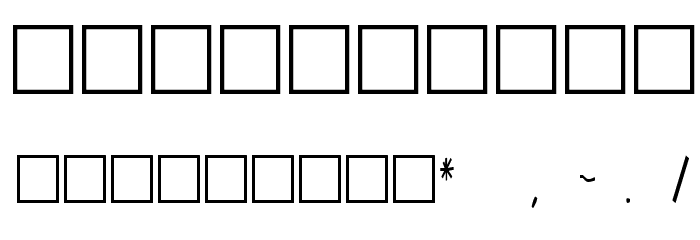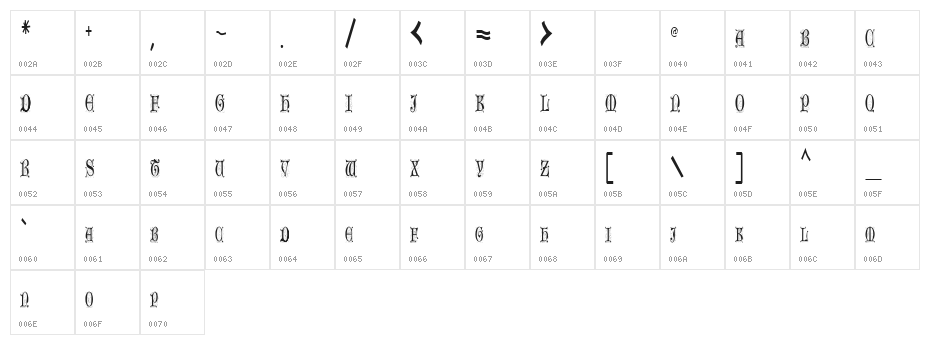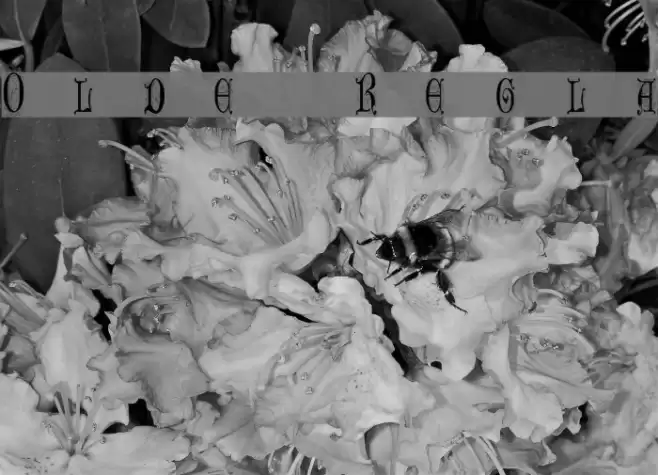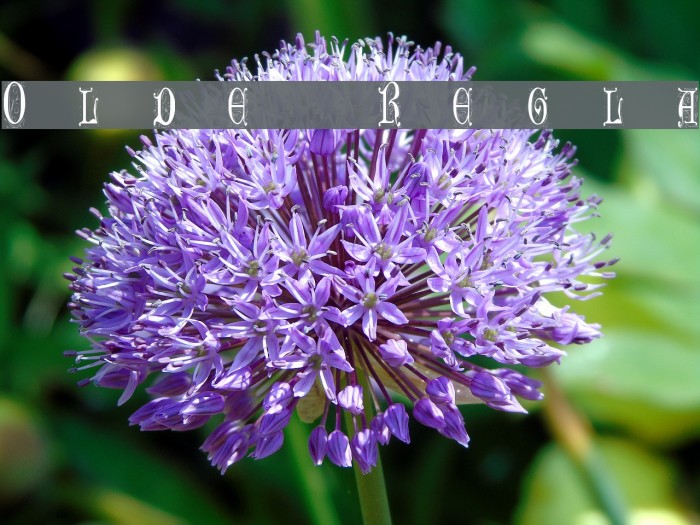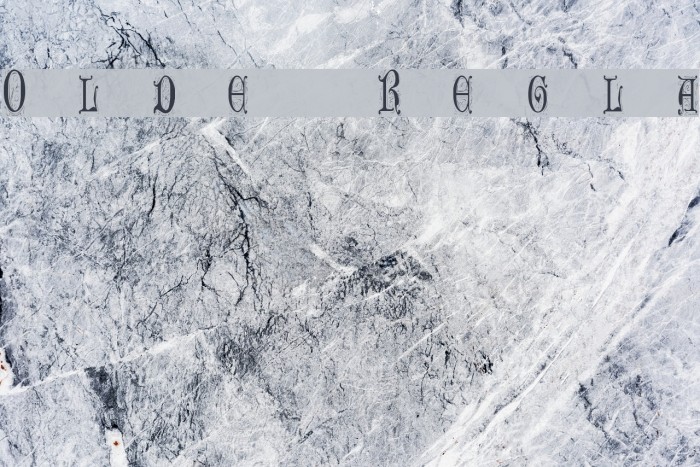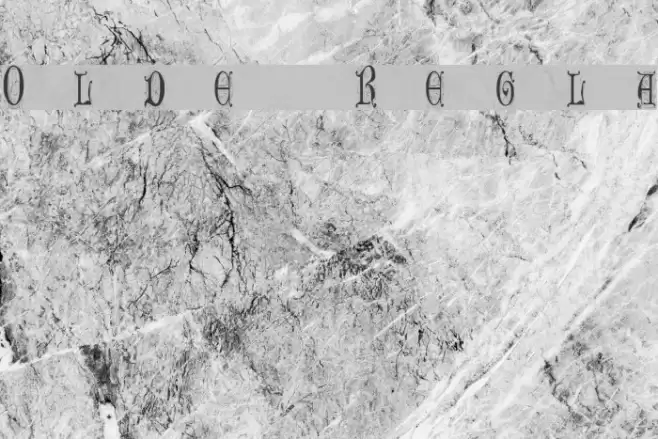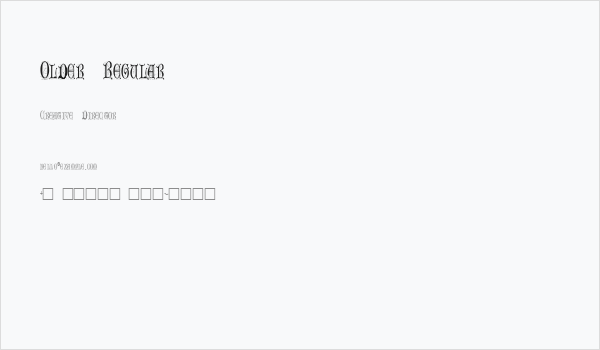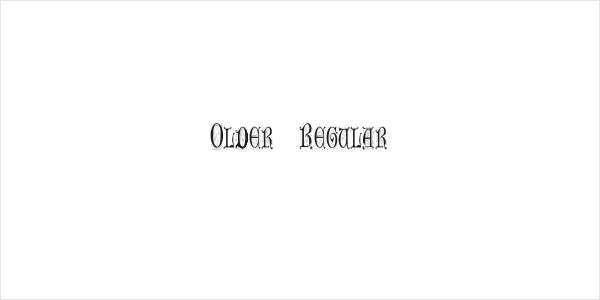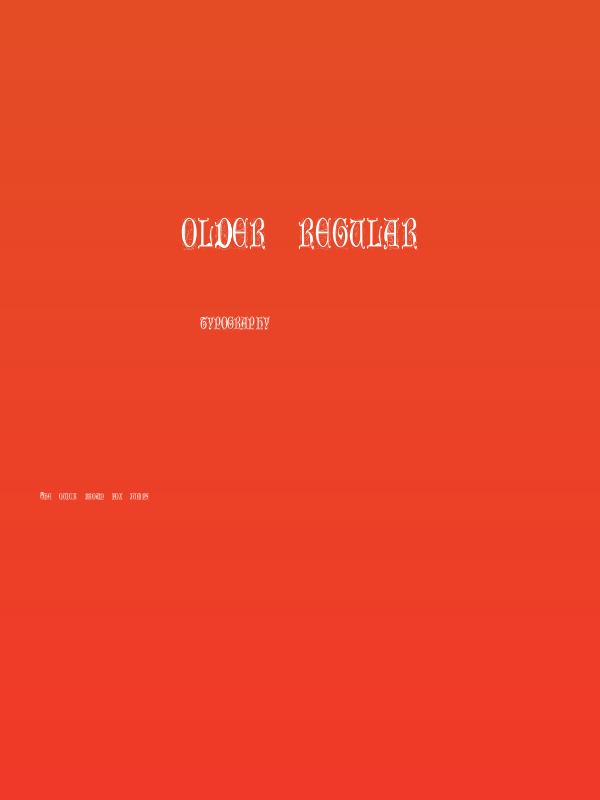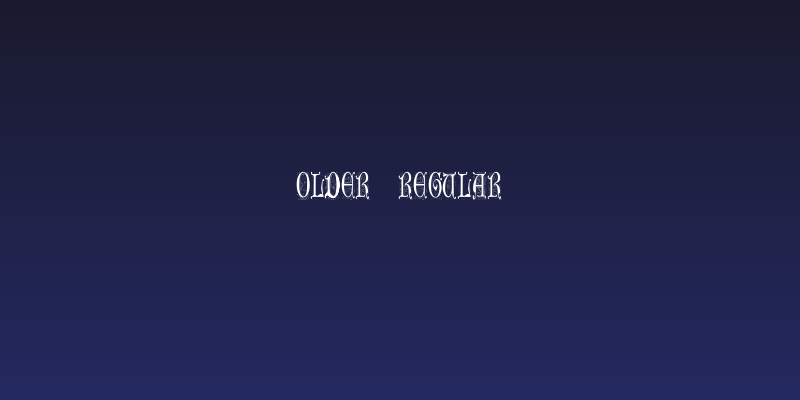
Older Regular Font
Older Regular Description
This font features an ornate and decorative style, reminiscent of vintage or historical typefaces. Each character is embellished with intricate details and flourishes, giving it a unique and artistic appearance. The uppercase and lowercase letters maintain a consistent design, with a slightly condensed form that enhances its decorative nature. The numerals and special characters are equally detailed, ensuring a cohesive look across all glyphs. This font's elaborate design makes it suitable for projects that require a touch of elegance and sophistication.
| Use Case | Headlines, Logos, Decorative text |
| Proposed Projects | Ideal for wedding invitations, historical-themed designs, book covers, or branding that requires a classic and elegant touch. |